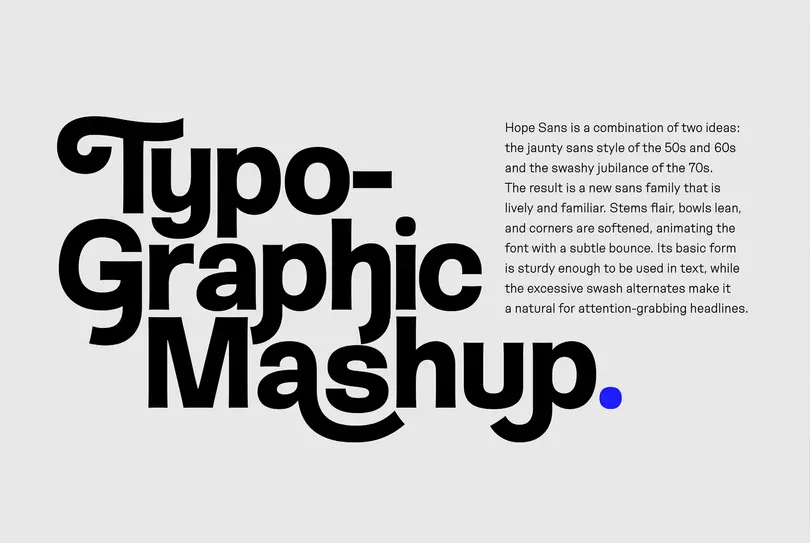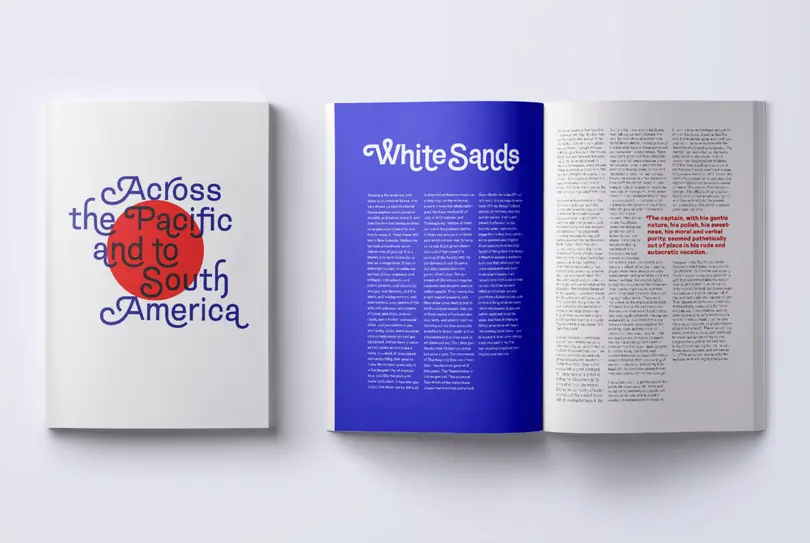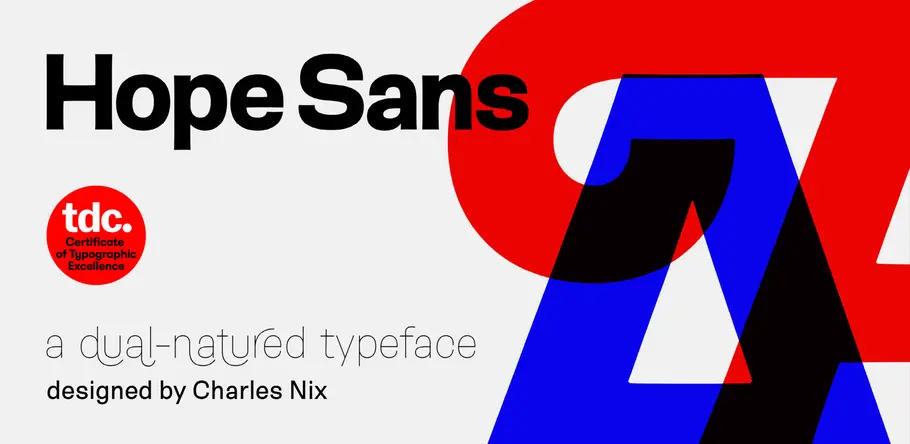
Meet Hope Sans, a Type Directors Club Typeface Design Competition Winner.
“ Hope Sans’ set of swash alternates offer almost endless combinations, giving designers a chance to change things up, and uncover what’s hiding behind the typeface’s sedate first impression. ”
Hope Sans
Hope Sans has been selected by the judges of the 22nd Annual TDC Typeface Design Competition to receive the Certificate of Typographic Excellence. It will be included in the Annual of the Type Directors Club, “The World’s Best Typography,” and will also be shown at the 65th Awards Exhibition (TDC65) in New York City.
Hope Sans is a typeface with a dual personality. On one hand, it’s a no-nonsense sans serif in six weights, versatile enough to take on anything from body copy to branding. But it’s also a throwback to the swash-heavy styles of the 1970s, with almost all of Hope Sans’ characters offering alternates that turn its tone of voice inside out.
Hope Sans
“My idea was to revive this softened handlettering style from the middle of the century,” explains Nix. “But I wanted to take that one step further—through the 50s and 60s and into the 70s. I grabbed some of the crazy stuff that was going on in phototypesetting. If you could draw a swash, you could tack it onto a letterform. Throughout the 70s people were creating dada-esque swash versions of popular—and some not-so-popular—type styles.”
Hope Sans’ set of swash alternates offer almost endless combinations, giving designers a chance to change things up, and uncover what’s hiding behind the typeface’s sedate first impression. “I can’t quite imagine how people will use it,” says Nix, “but I wanted to provide enough components for designers to create really surprising settings and lockups with it.”
“ It could be some crazy seventies-swash-orgy-style with tendrils reaching all over the place, or something almost Renaissance where you just tip in a swash capital and leave it at that.” ”
Even the design’s alternate-free appearance isn’t devoid of its own moments of playfulness, with its “gothic sobriety” offset by flared strokes and cupped terminals.
“It’s important in grotesques that they look machine-like, and unassailable,” says Nix. “They look universal, or at least that’s the role they’ve taken on over the last 50 or 60 years. When hugely-popular fonts like the Helvetica and Univers typefaces were introduced they almost immediately became a shorthand for the international typographic style. I wanted to rewind to that mid-century moment, when the new grotesques were really taking off, and look at the ways that contemporary artists like Mortimer Leach, Peter Dom, Robert Evans, and George Abrams were making sans serifs by hand.”
Nix took cues from a wave of more relaxed grotesques that appeared in Madison Avenue advertising, giving the letters what he calls a “relaxed draping”, lending a little more softness and grace than some of the more rigid grotesque counterparts.
“If you look at the lowercase A, you would expect that shoulder to be very supportive and muscular, almost architectural,” he explains. “Instead it just tilts a little. I looked for places in the design, small places, where it could just ‘relax’ a little bit, where it could drop its shoulders.”
Hope Sans’ large counters and open spacing means it can work effortlessly across a range of environments—including digital, print, text, headlines, editorial, advertising, and branding—and for any use designers can imagine for its enormous set of swashes.
“I think people will find things in the back of the house and pull them to the fore,” says Nix. “It could be some crazy seventies-swash-orgy-style with tendrils reaching all over the place, or something almost Renaissance where you just tip in a swash capital and leave it at that.”